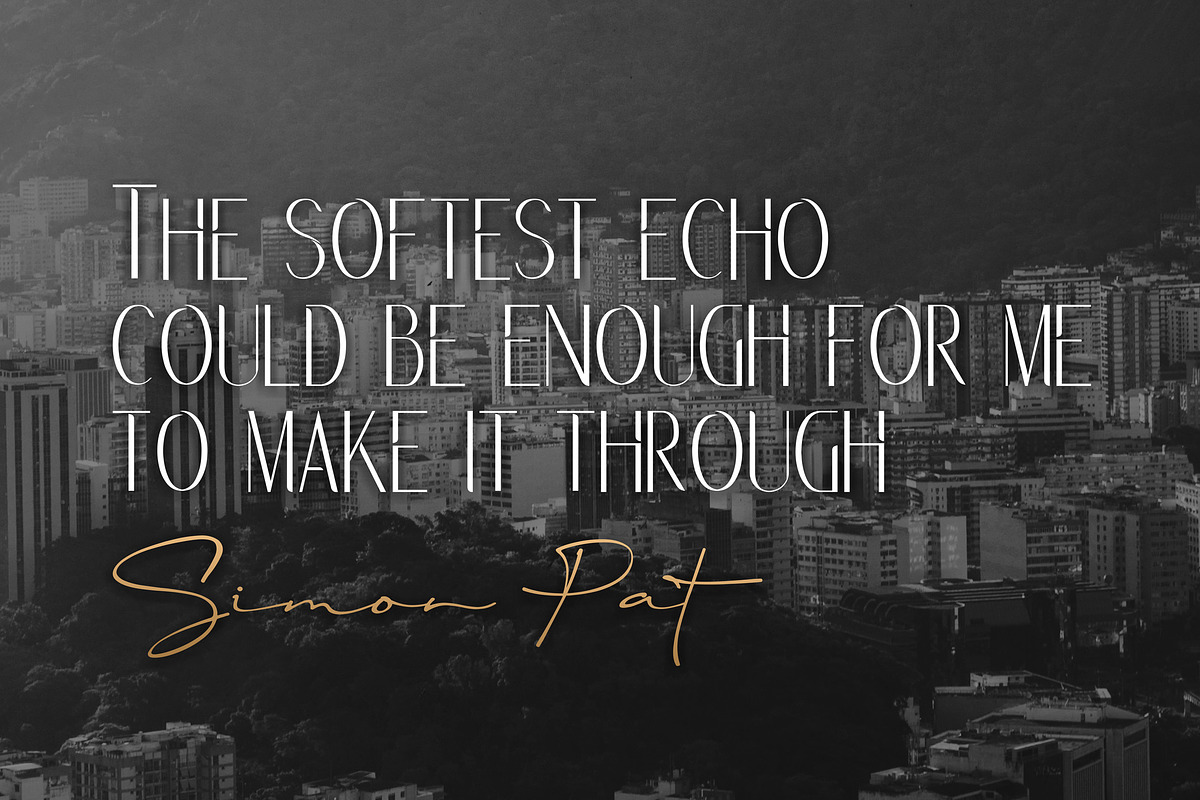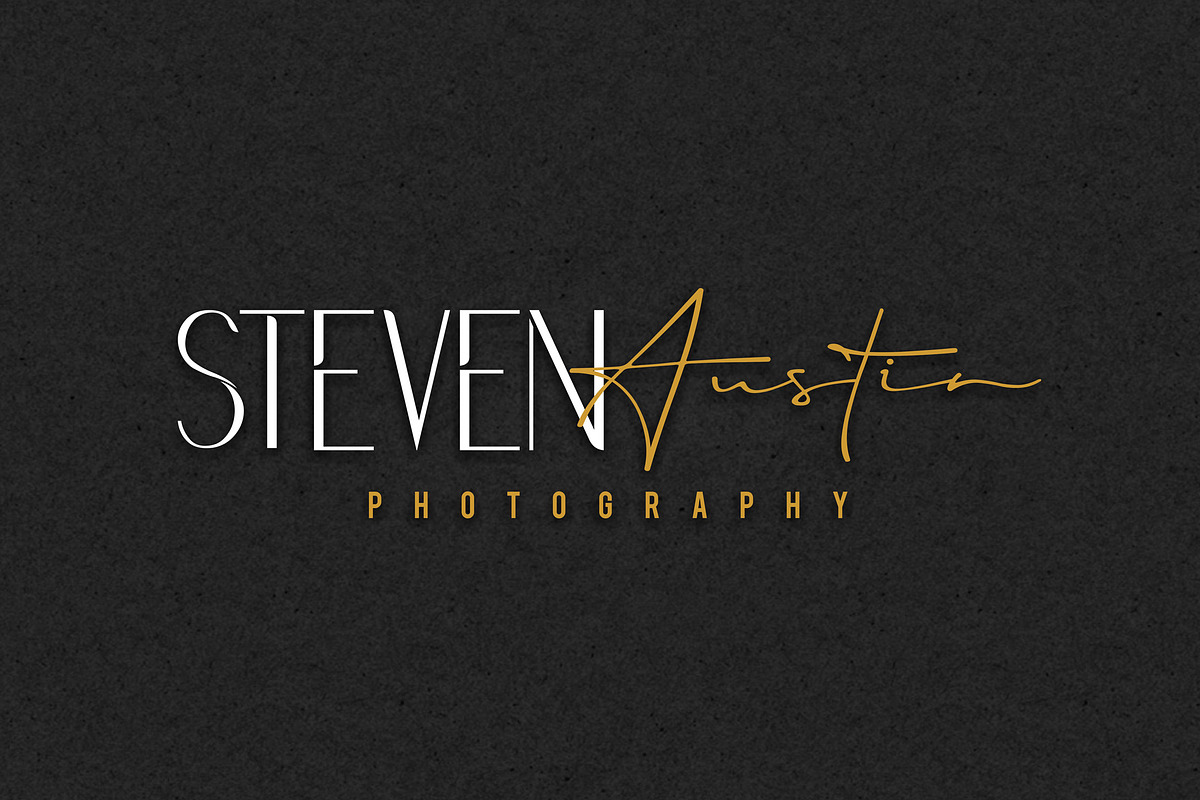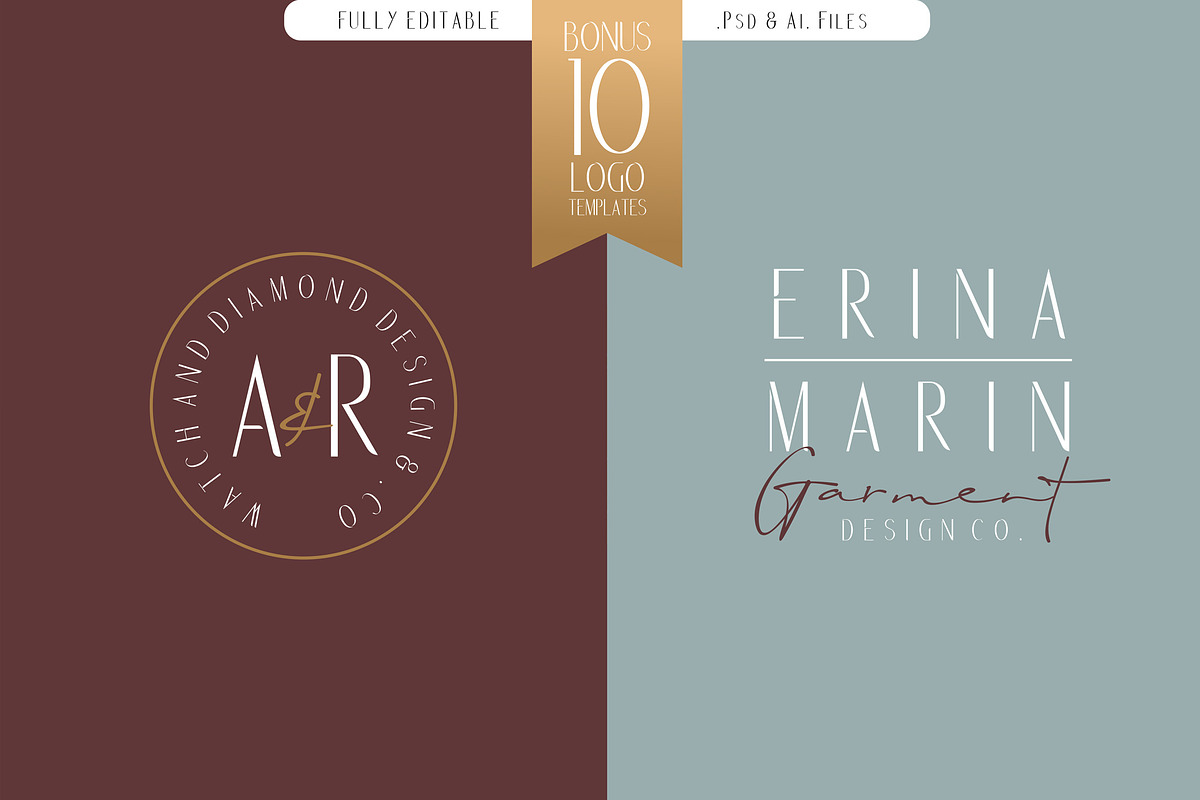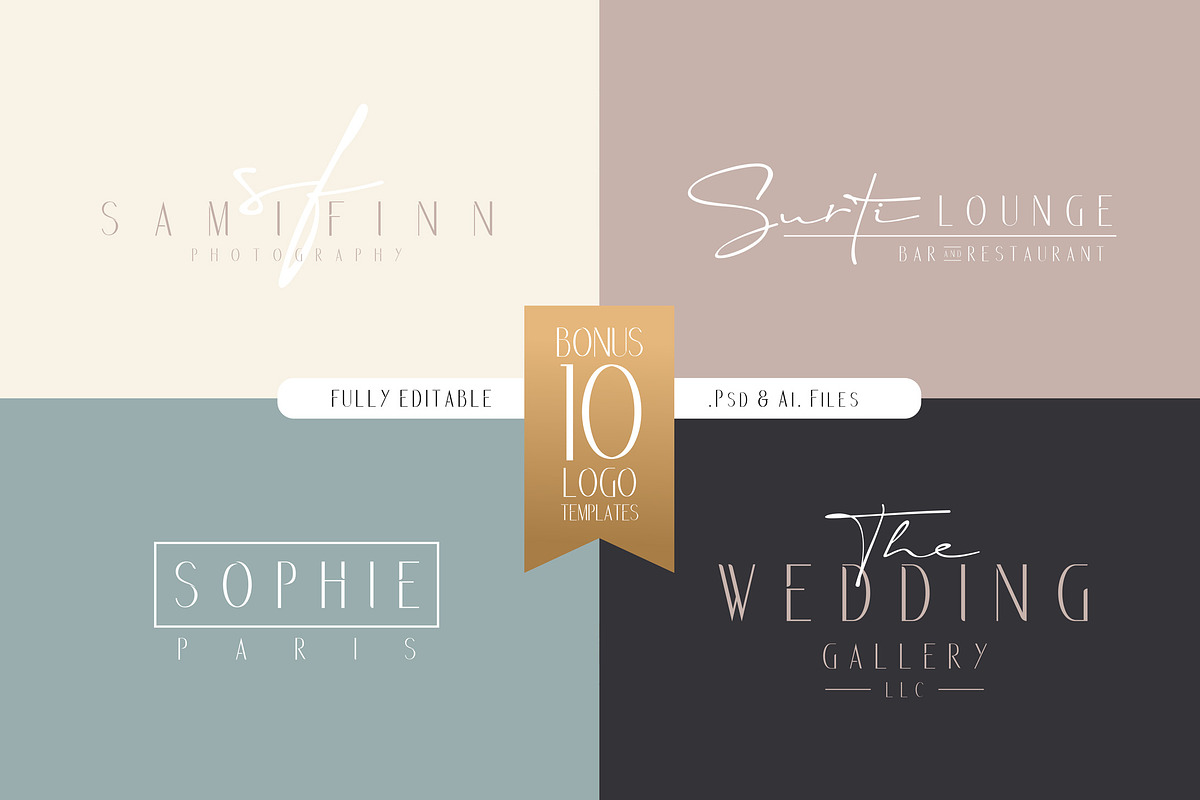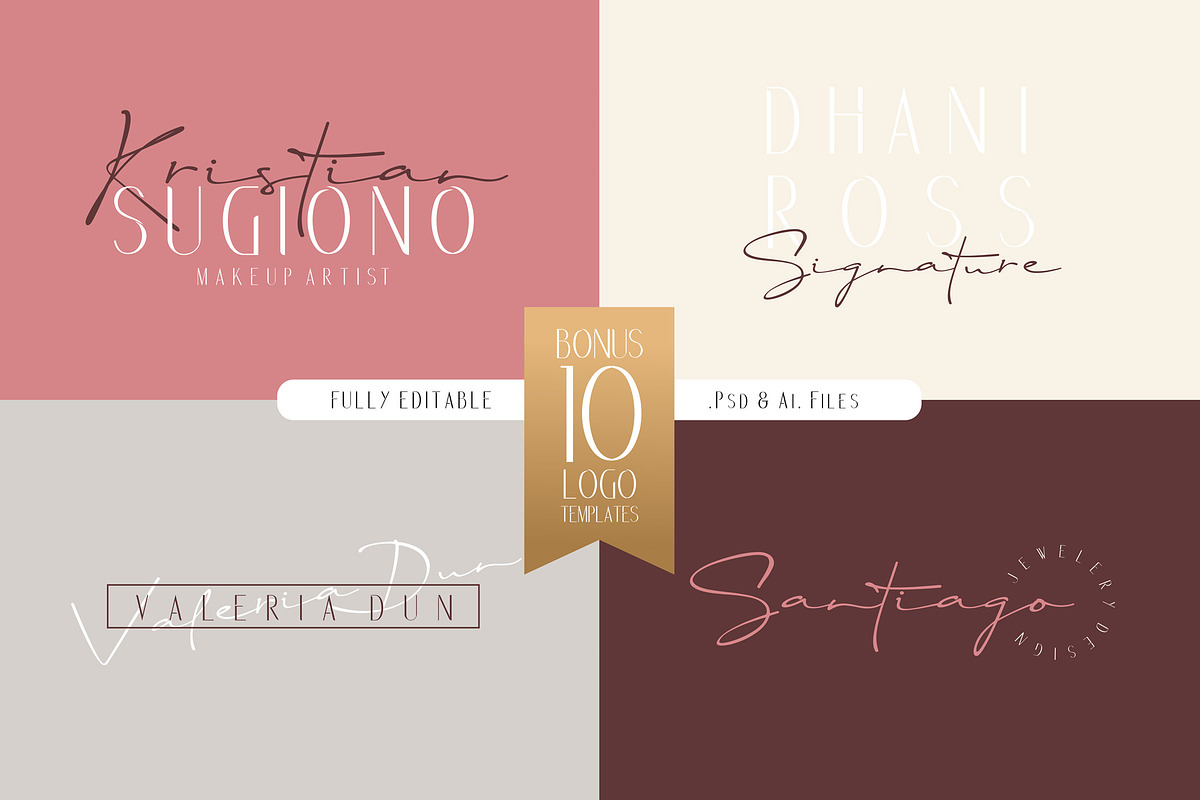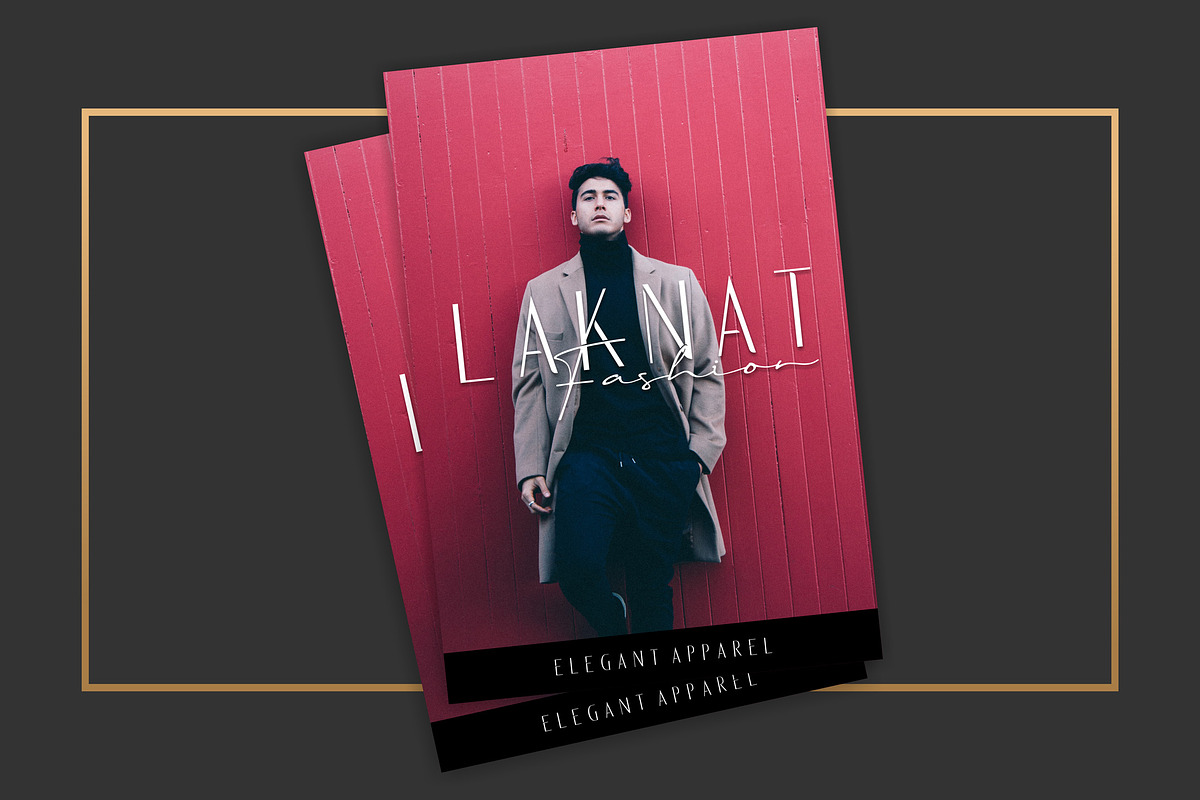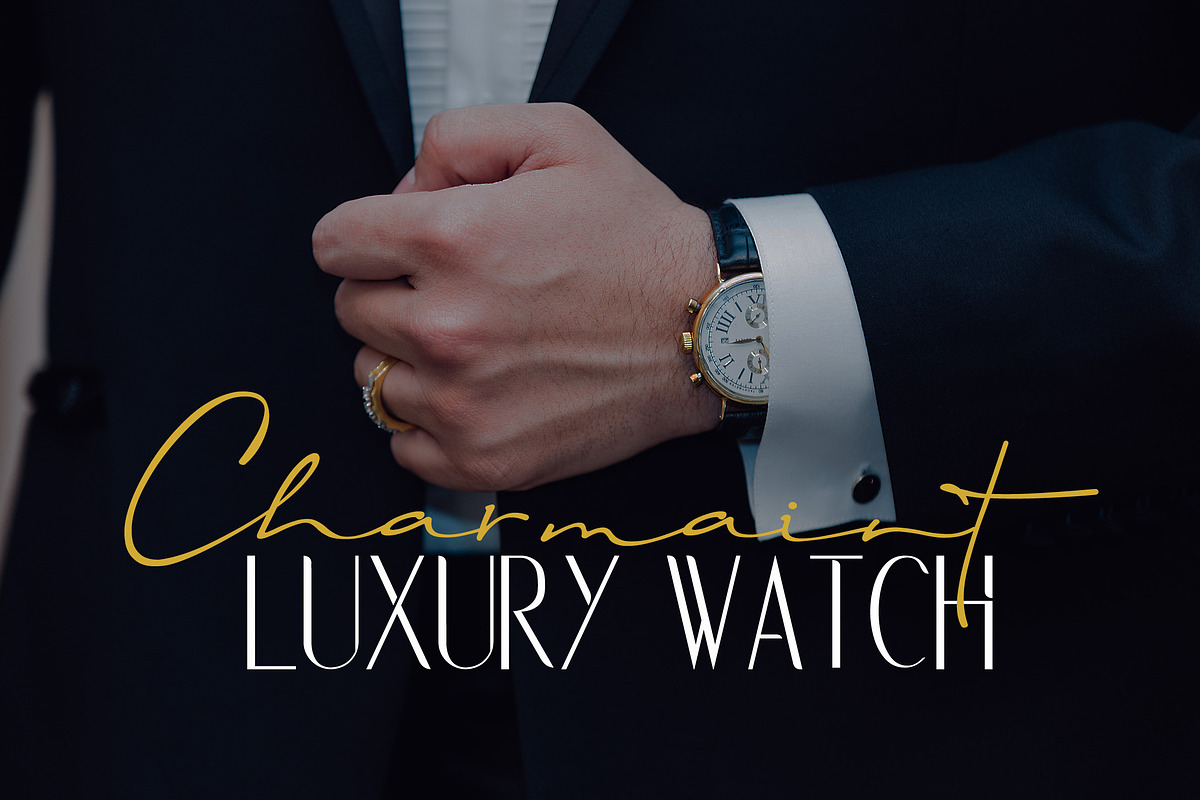
Rochefort | Luxury Font DUO
Introducing: Rochefort! an Elegant handwritten font with a personal charm. With lovely strokes and a signature style, Rochefort is perfect for branding projects, homeware designs, product packaging - or simply as a stylish text overlay to any background image.
1. Rochefort Script • A handwritten script font containing upper & lowercase characters, numerals and a large range of punctuation.
2. Rochefort • This is a second version of Rochefort, with a completely new set of both lower and uppercase characters.